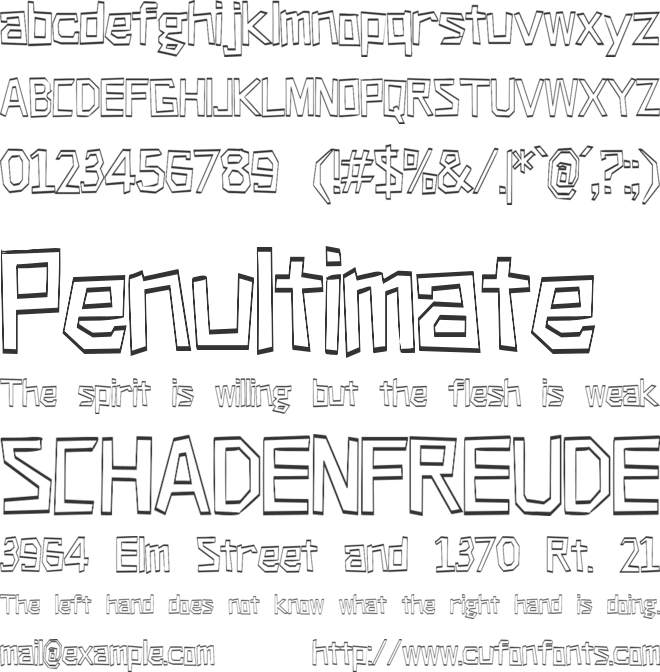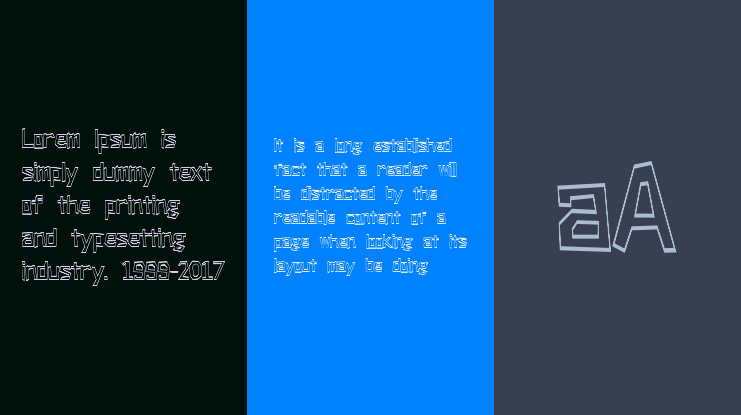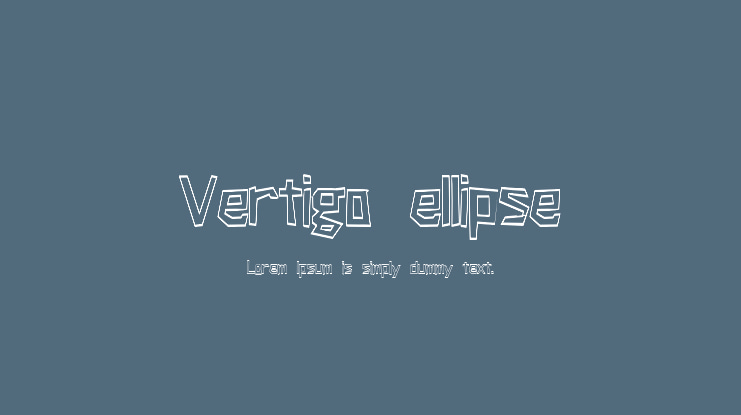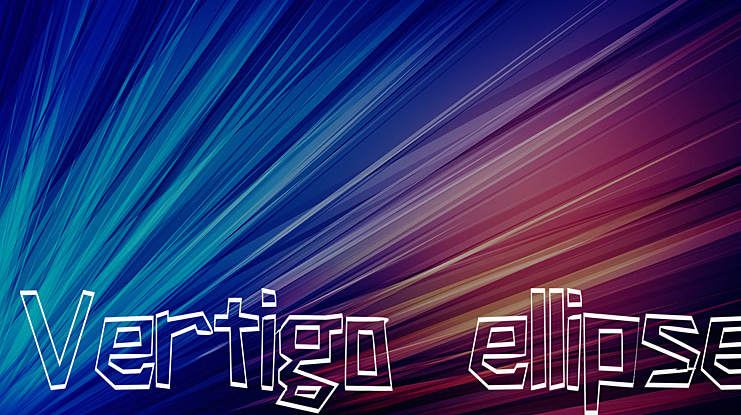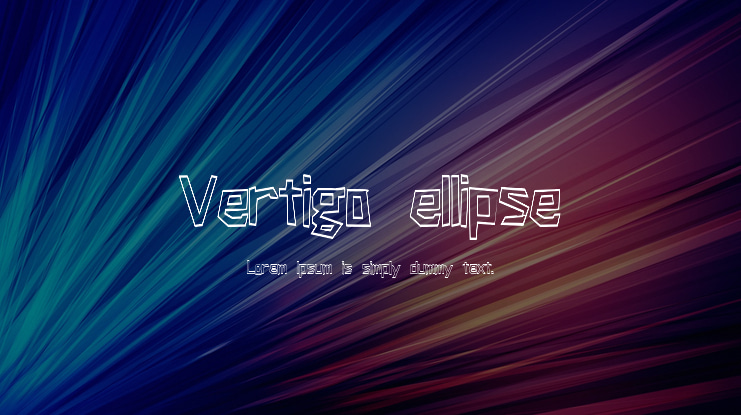
Vertigo ellipse Font Family
P. A. Vannucci
Directly from the film directed by Alfred Hitchcock, starring an unforgettable JAMES STEWART and KIM NOVAK, the unpublished font for all admirers of the film.
Direttamente dal film diretto da Alfred Hitchcock, interpretato da un indimenticabile JAMES STEWART e da KIM NOVAK, il font inedito per tutti gli estimatori del film.